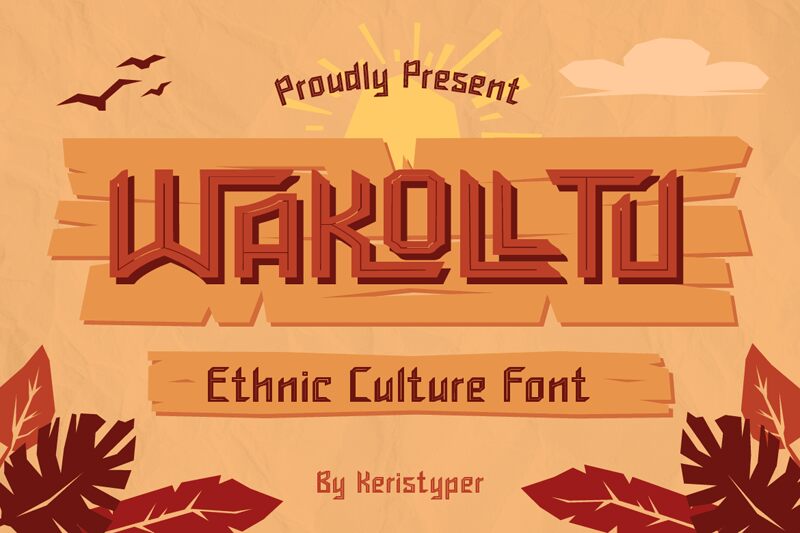
Wakolltu, crafted by Tezar Tantular of Keristyper, stands out as a display font with a rich ethnic essence. Its condensed form creates an intricate and bold aesthetic that demands attention. The unique character shapes and elaborate details evoke cultural vibrancy, making it an ideal choice for designs seeking a distinct and captivating look.
Perfect for applications in branding, posters, or any creative project aiming to convey uniqueness and tradition. Wakolltu's striking presence ensures your message is delivered with both clarity and artistic flair.
Wakolltu